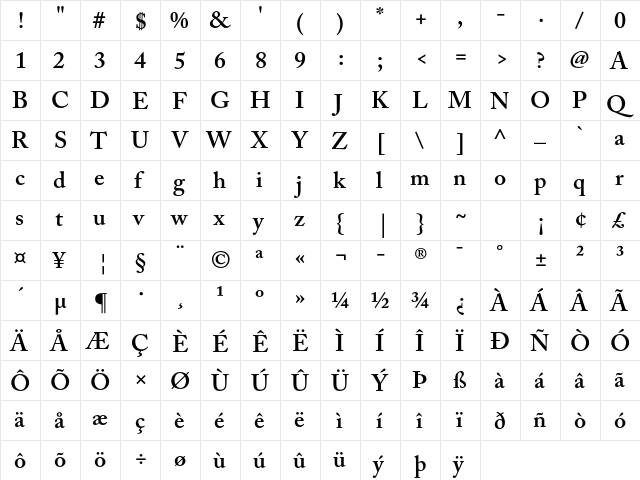
Adobe Caslon Pro Semibold Font Preview
Adobe Caslon Pro Semibold
Adobe Caslon Pro Semibold Font Details
| Style | Semibold |
| Designer | Carol Twombly |
Design Context for Adobe Caslon Pro Typeface
Adobe Caslon Pro takes a measured approach to typography — its balanced proportions and neutral character make it a reliable workhorse for both digital and print work. The heavy weight commands attention and anchors typographic hierarchies.
Pro Tip: Use Adobe Caslon Pro in both headline and body roles to test its range before committing to a single application.